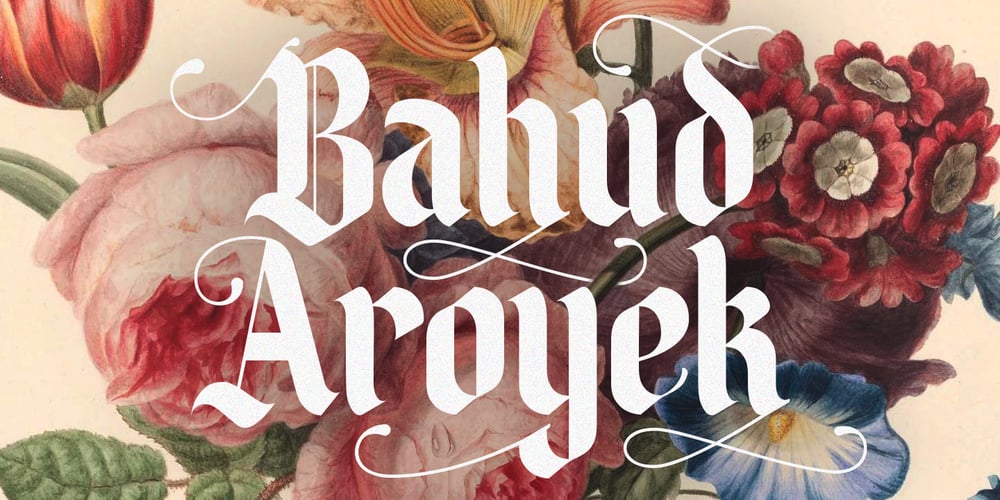
Bahud Aroyek
Bahud Aroyek font
Bahud Aroyek Font Family was designed by Gilang Maulana and published by Maulana Creative. Bahud Aroyek contains 1 styles and family package options. Bahud Aroyek Decorative Display Font BlackletterBahud Aroyek Vintage is a handmade Modern Victorian handlettering, which is combining modern and classic typography with some awesome alternates. Yes we back to early 1800s, bring classic touch on this decade.Thanks for use this font.MaulanaCreative.